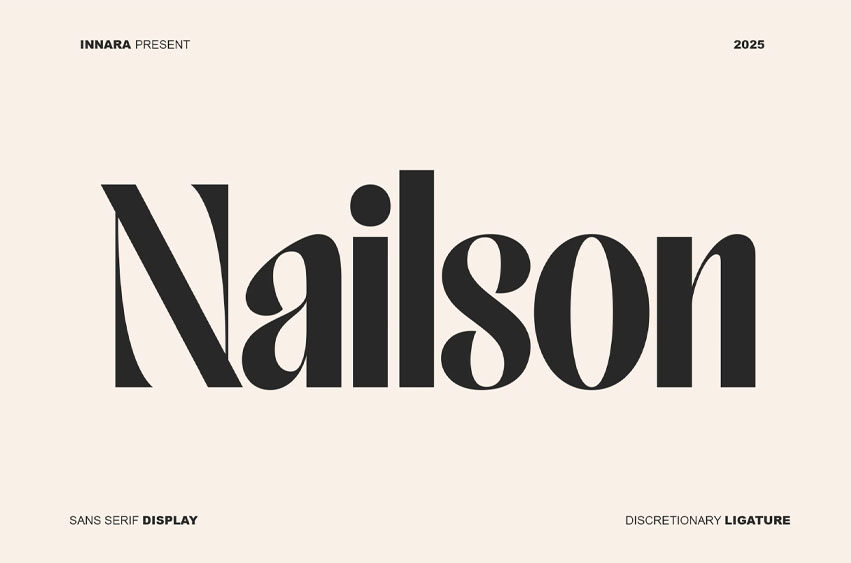
Nailson Font is a typeface that instantly elevates any design with its dramatic contrast and timeless beauty.
Nailson is a stunning high-contrast serif that commands attention. Its razor-sharp serifs, sleek lines, and delicate curves create a captivating dance between drama and refinement. This font doesn’t whisper; it makes a sophisticated statement, perfect for brands that value luxury, style, and a touch of daring.
Key Features to Inspire Your Design:
- Dramatic Contrast: The striking variation between thick and thin strokes creates an instantly glamorous and high-end feel.
- Built-in Sophistication: Nailson carries an air of classic luxury, making it ideal for fashion, beauty, editorial layouts, and premium product packaging.
- Stunning Ligatures: Enhance your typography with a selection of elegant ligatures. These special connecting character pairs ensure a smooth, bespoke flow, transforming basic text into a work of art.
Use Nailson to brand your next project, set the tone for a magazine cover, or create a truly unforgettable logotype.
Nailson isn’t just a font; it’s a statement of uncompromising elegance.